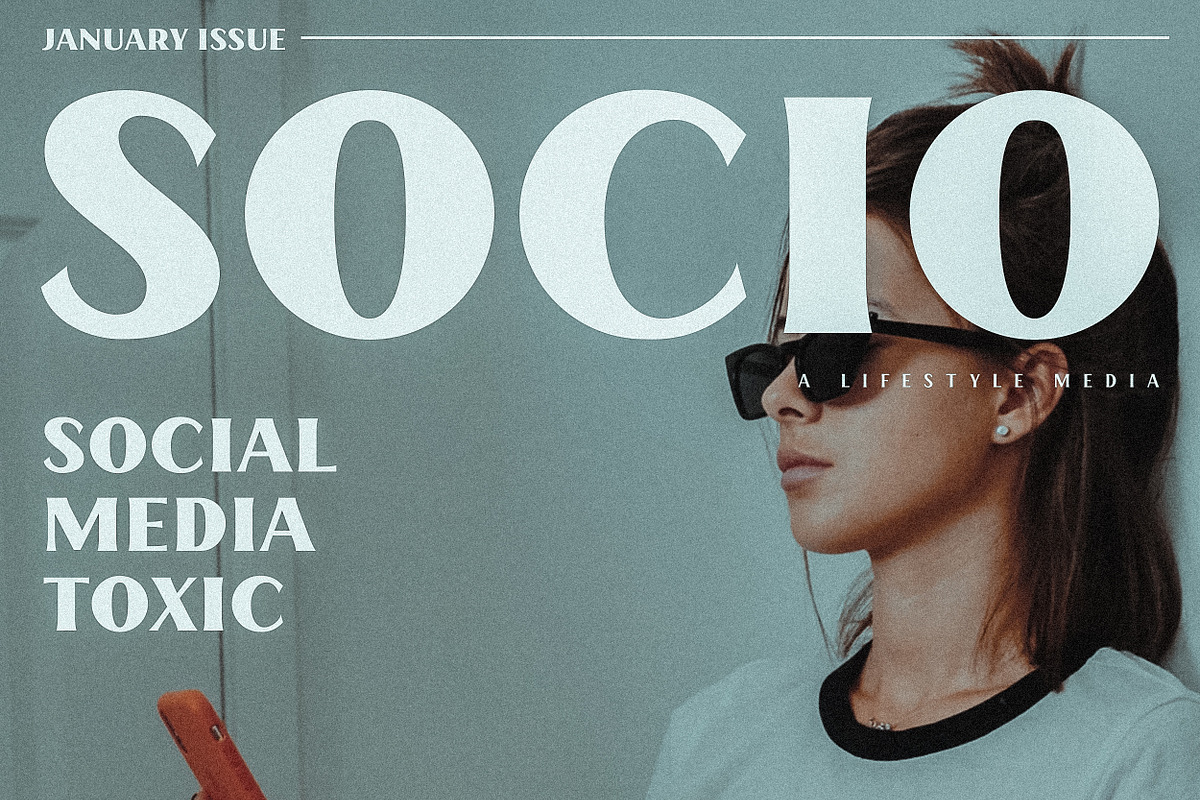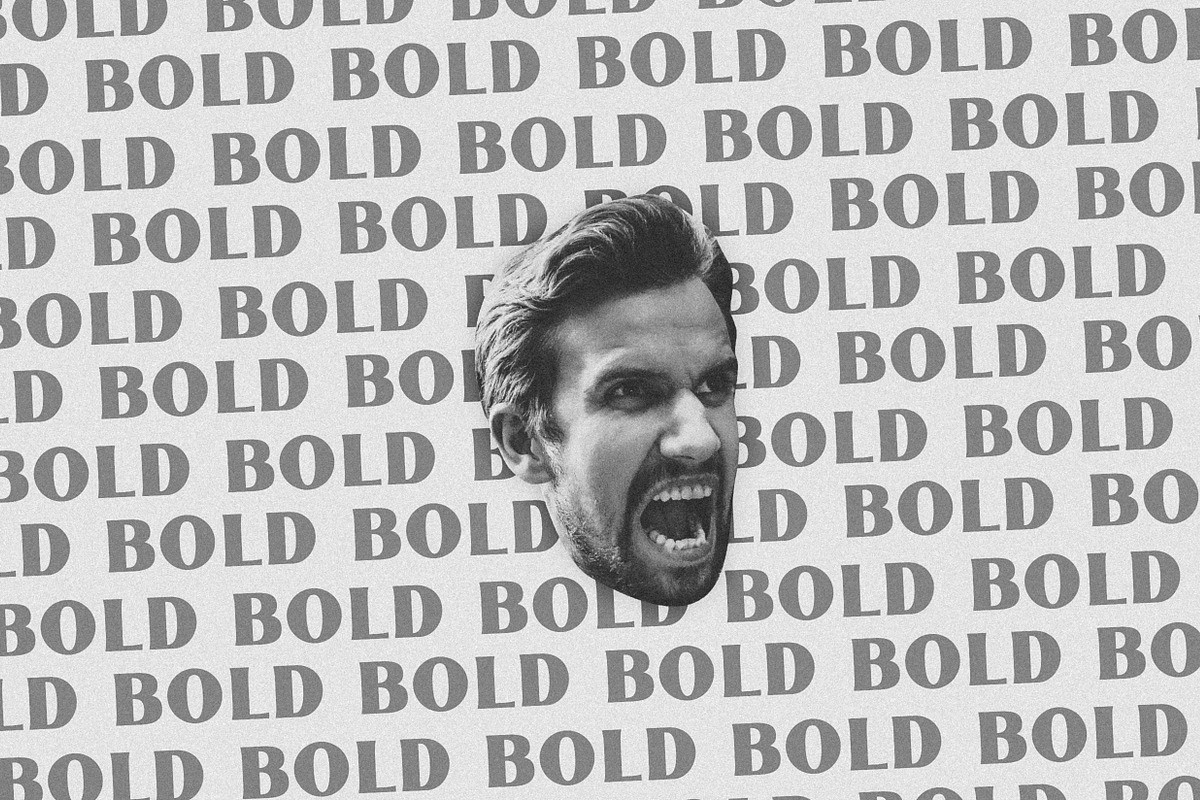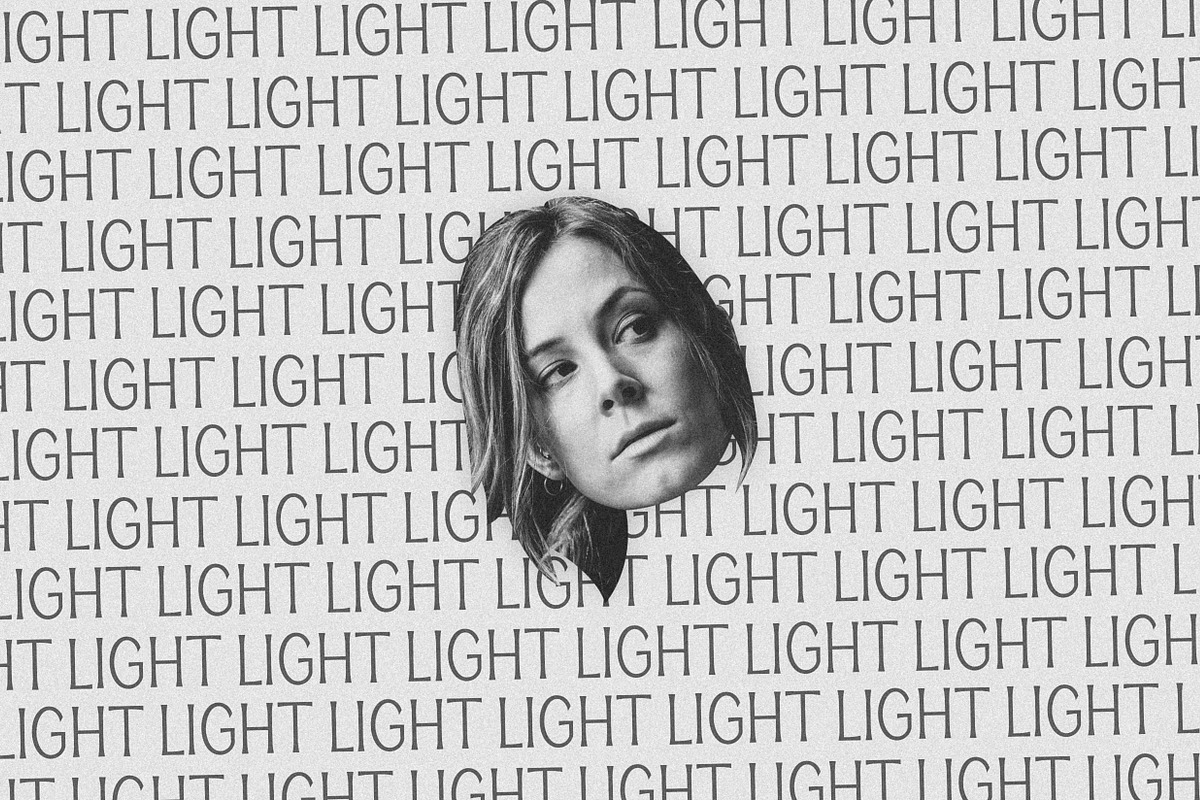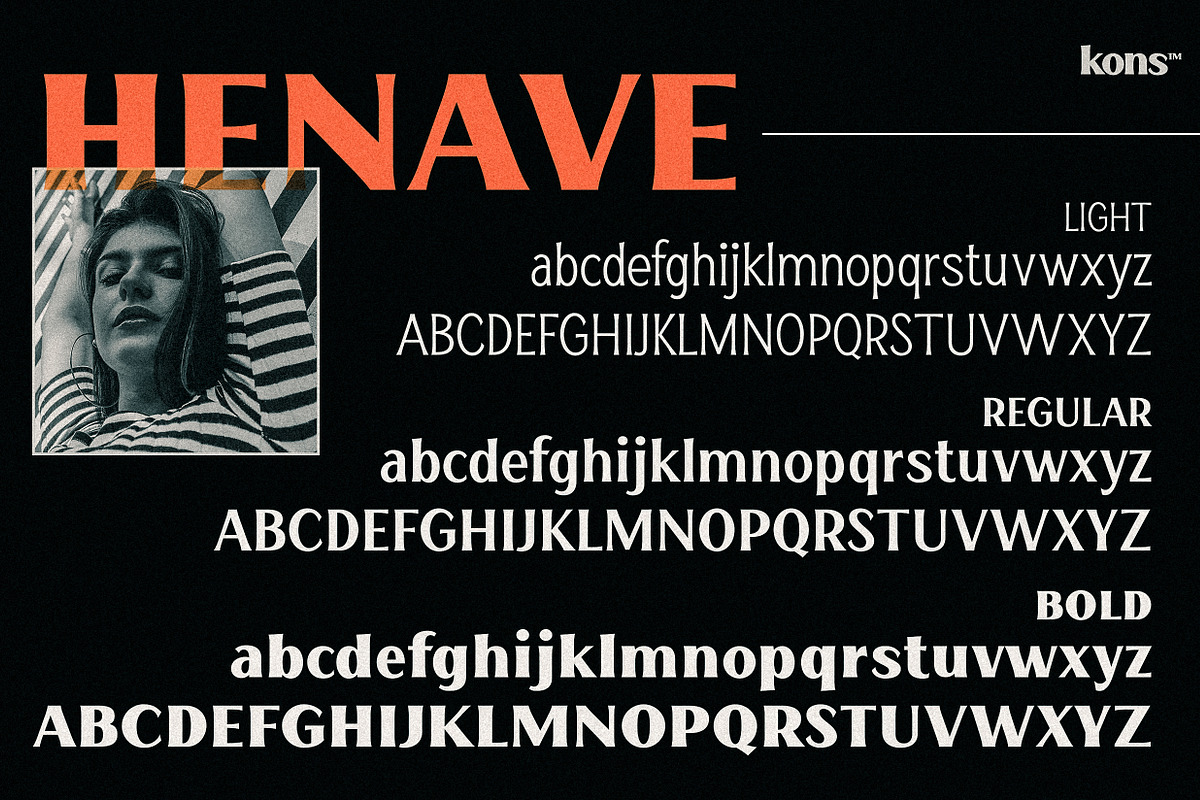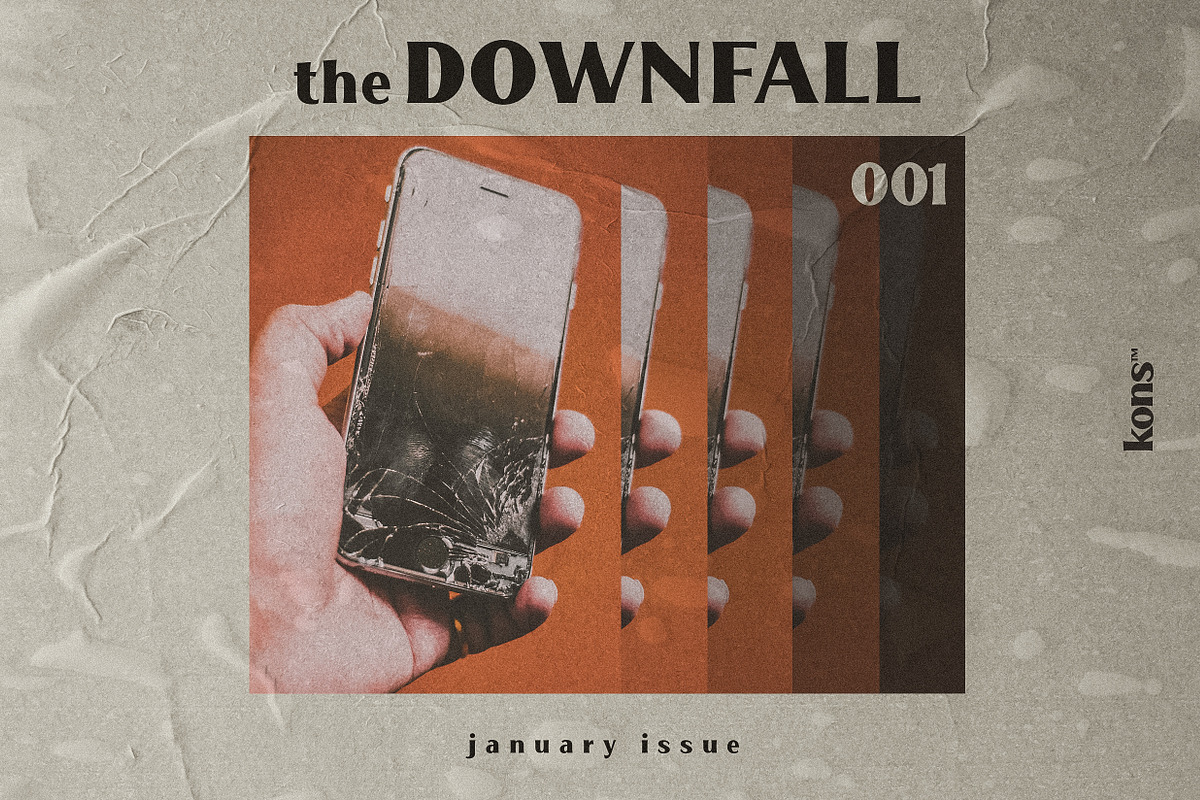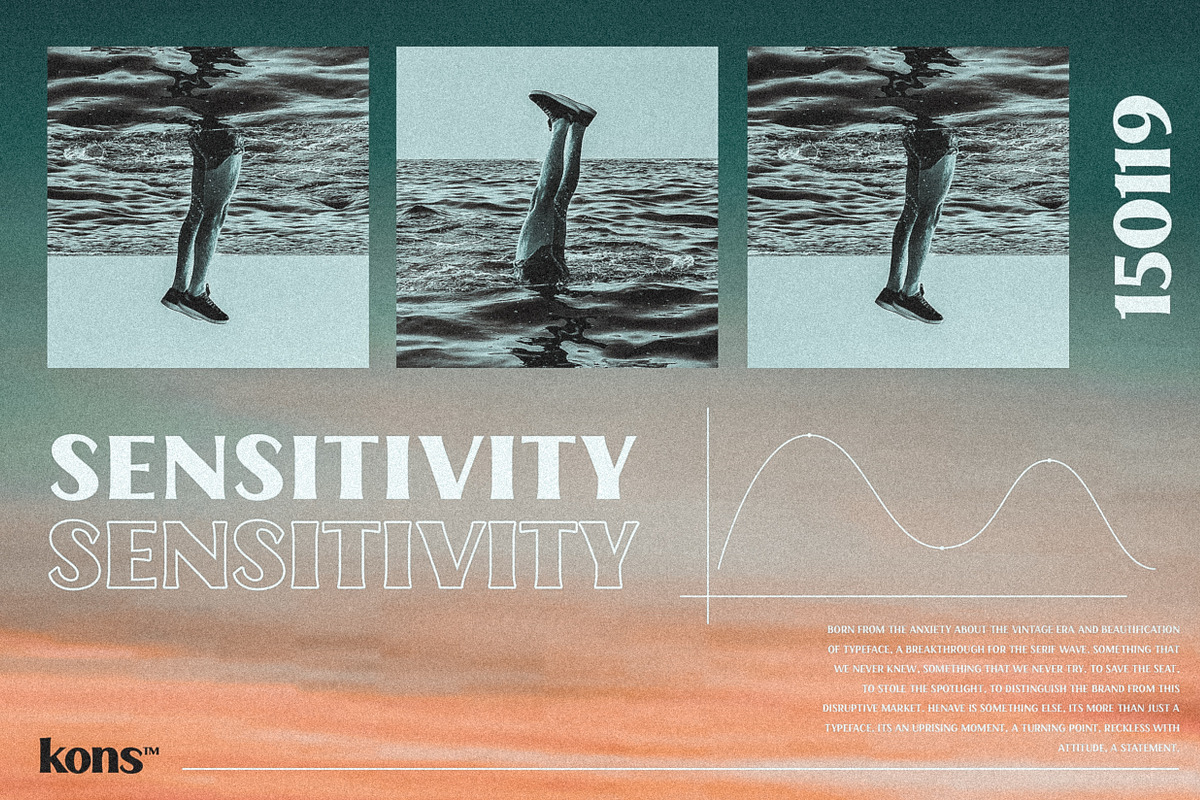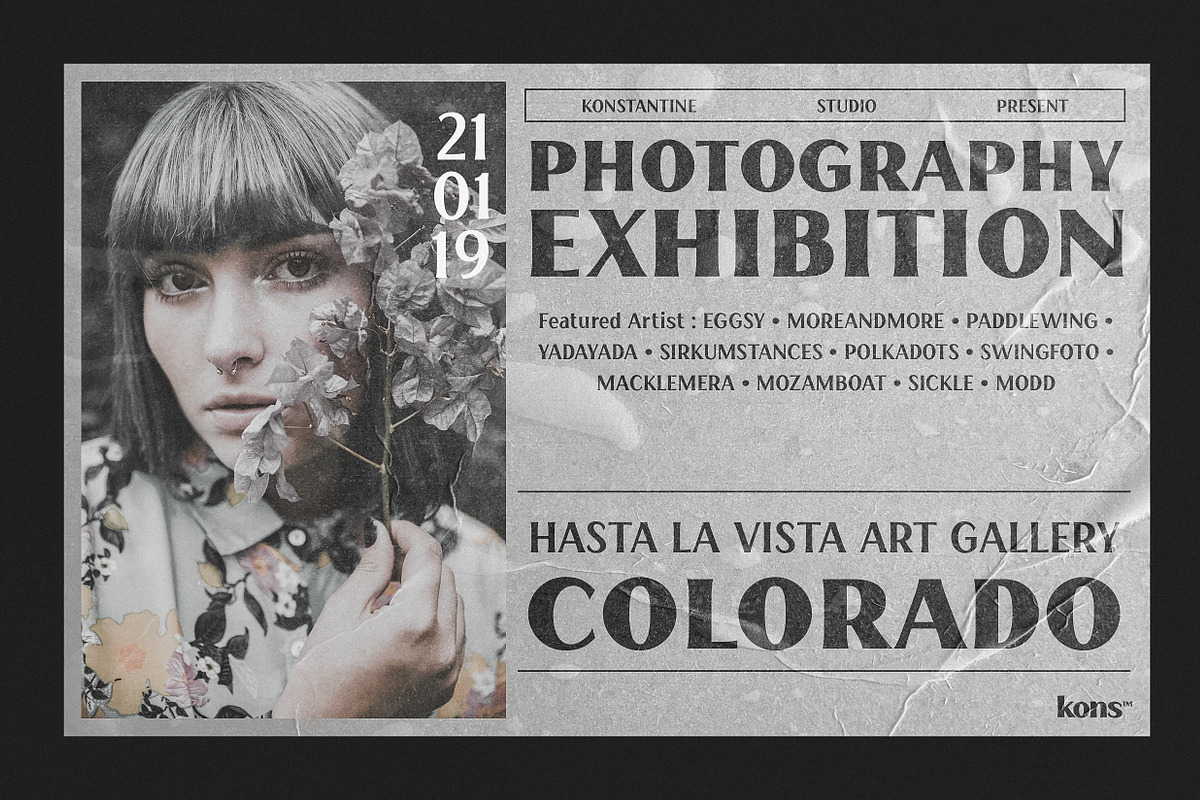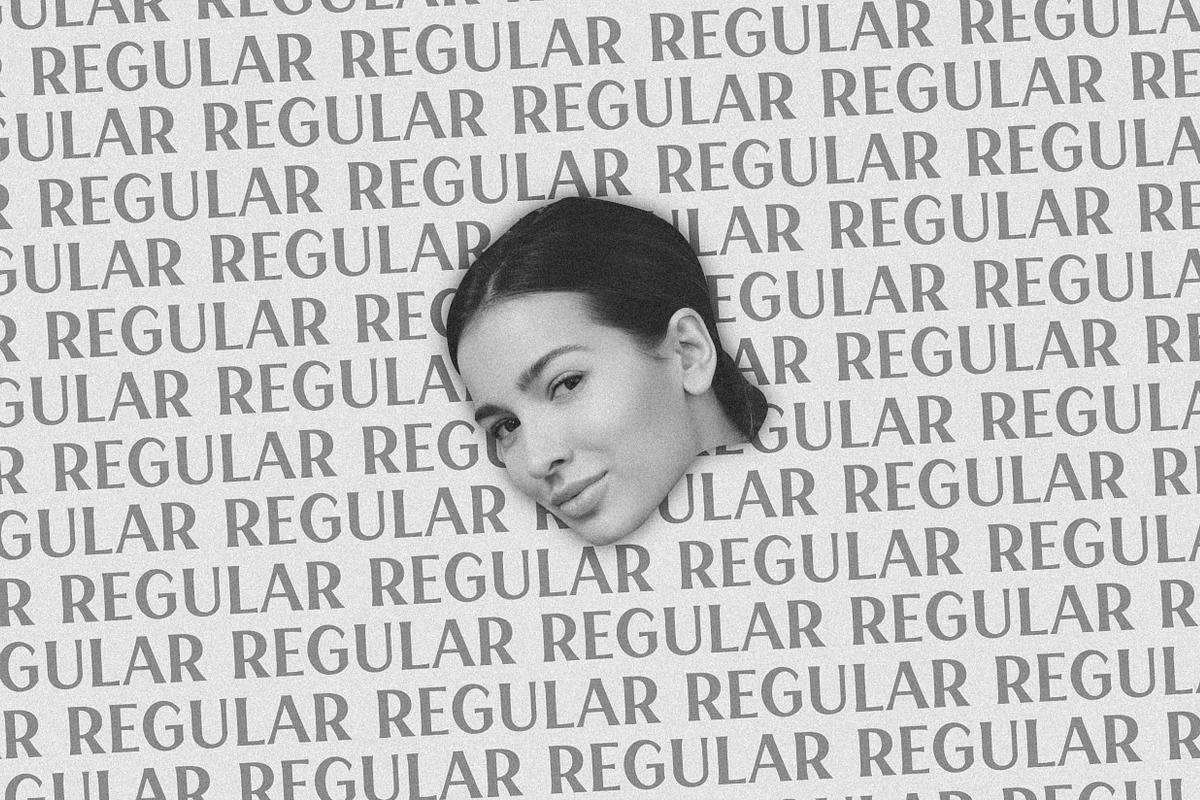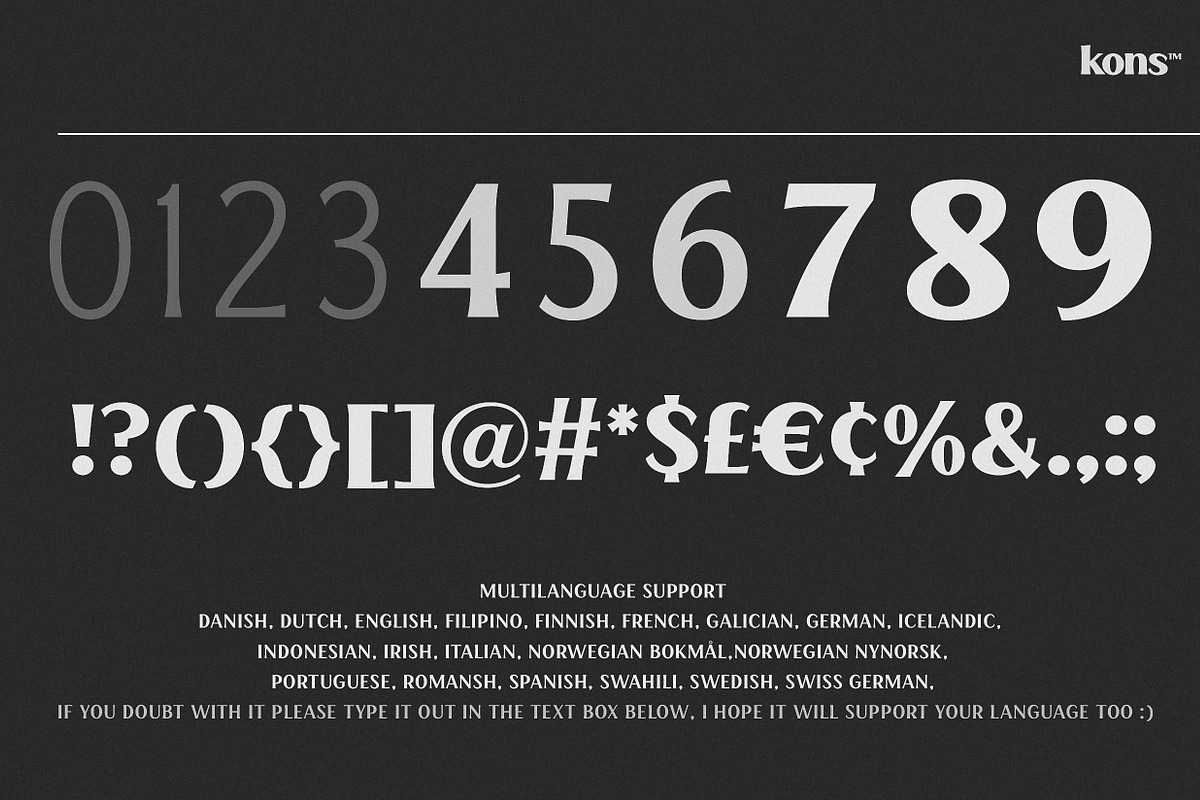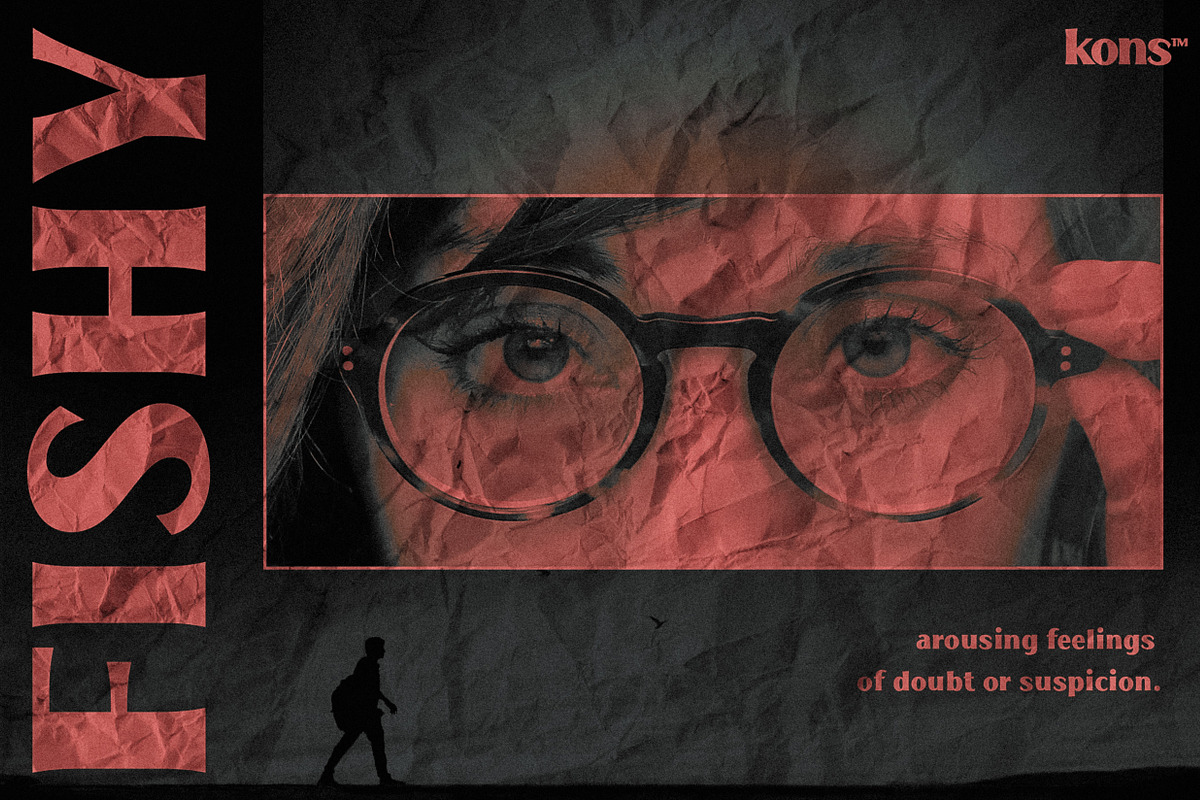
HENAVE - Strong Display Serif
Born from the anxiety of beauty and vintage style typeface nowadays, we think about the breakthrough, the experimental direction, to push the serif typeface beyond the mainstream, raising the bar higher, jump into the different sea, this is the next step of our creative process.
Without any further ado, please welcome, HENAVE. A family of serif typeface with unusual approach. With the purpose to bring the legacy vibes into the new wave. This typeface will be a great armour for your loud poster, social media content, album artwork, 90's vibes design, solid branding, and more.